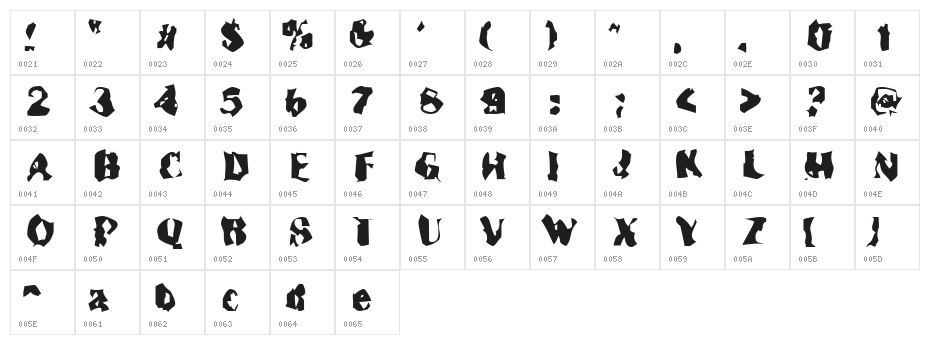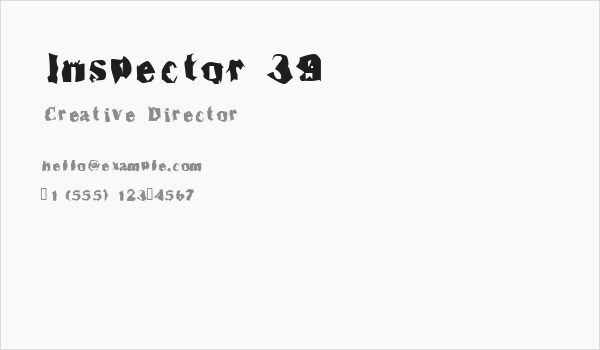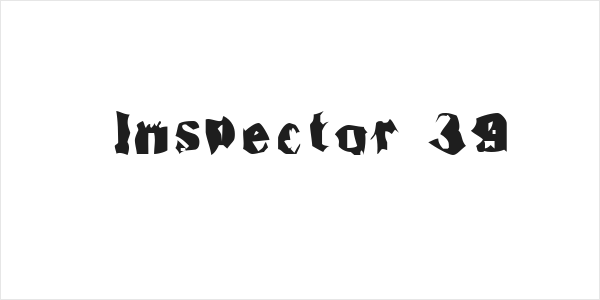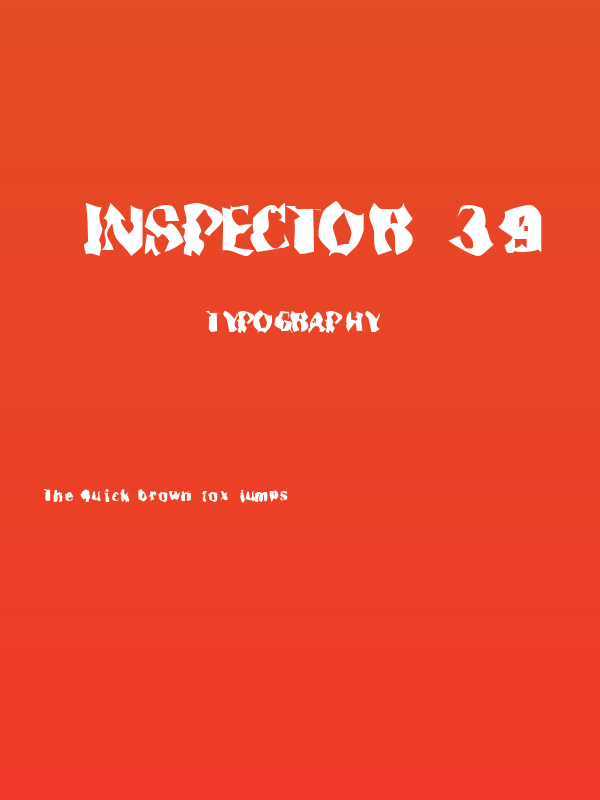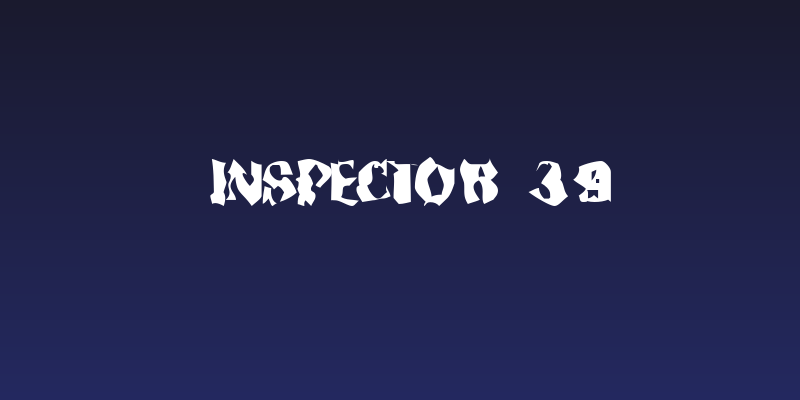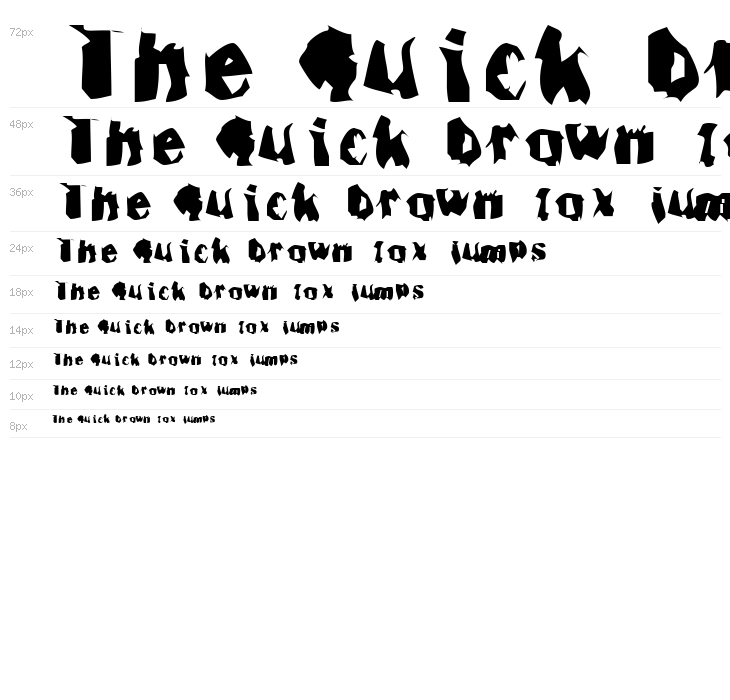
Inspector 39 Font
Inspector 39 Description
This font features a bold, jagged style with a distinct, edgy appearance. The characters are heavily stylized with sharp angles and irregular shapes, creating a chaotic yet artistic look. The uppercase and lowercase letters maintain a consistent theme, with each character appearing as if it has been roughly carved or torn. The numbers and special characters follow the same design principles, ensuring uniformity across the font. This font is highly decorative and makes a strong visual impact, ideal for projects that require a dramatic and unconventional typeface.
| Proposed Projects | Ideal for album covers, poster designs, graffiti art, and edgy branding projects. |